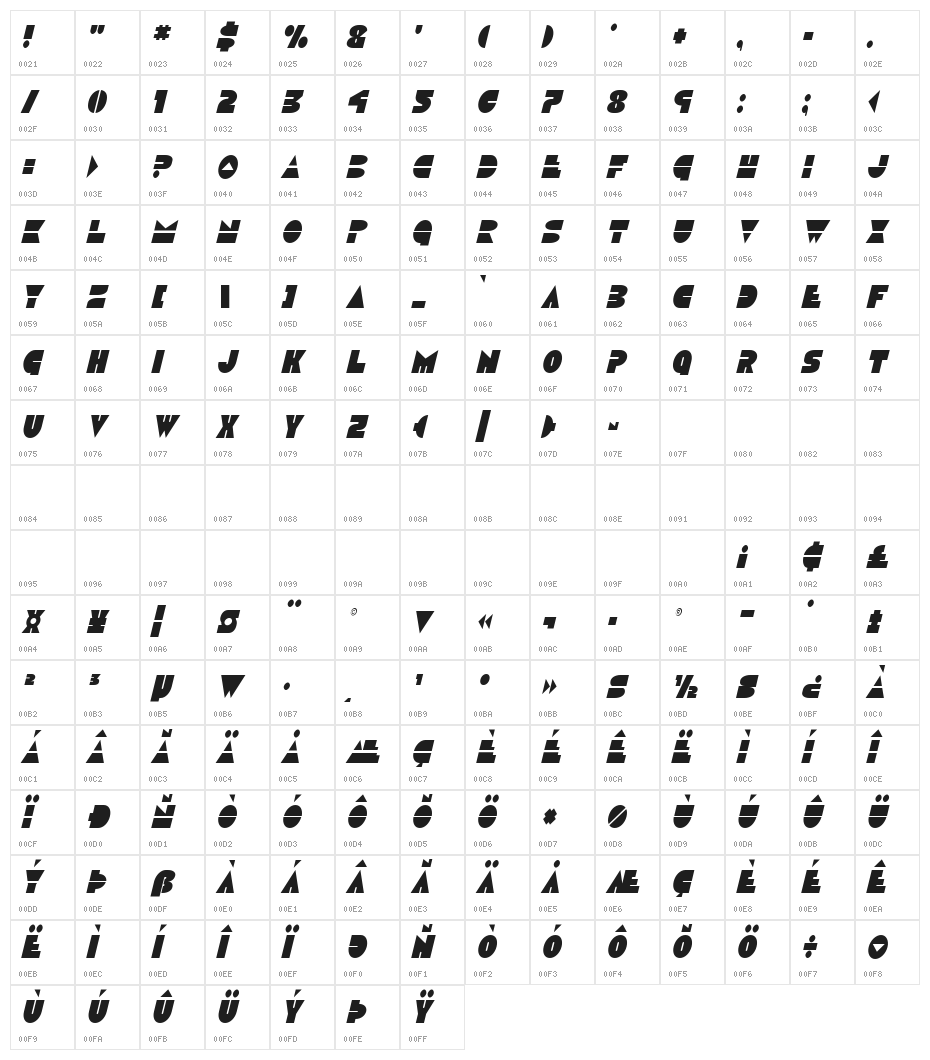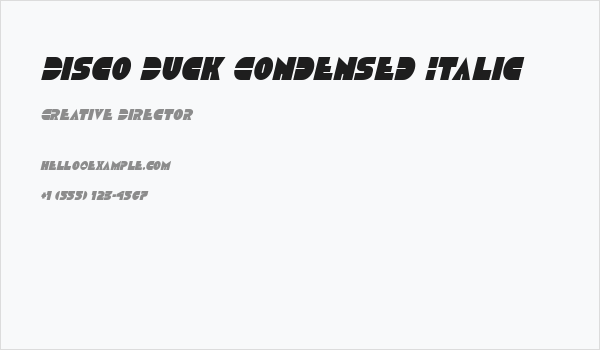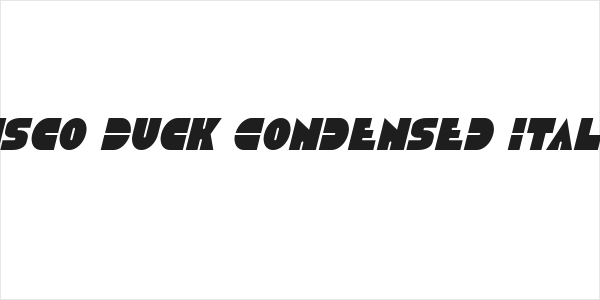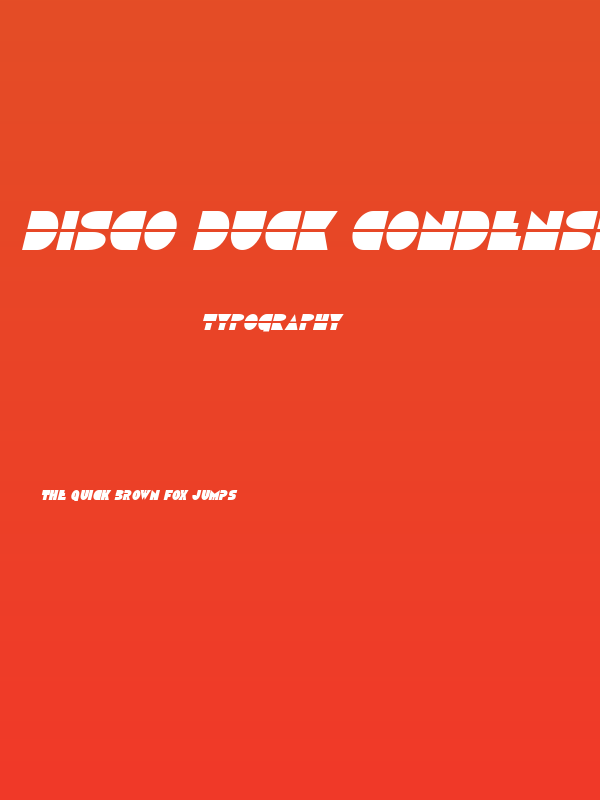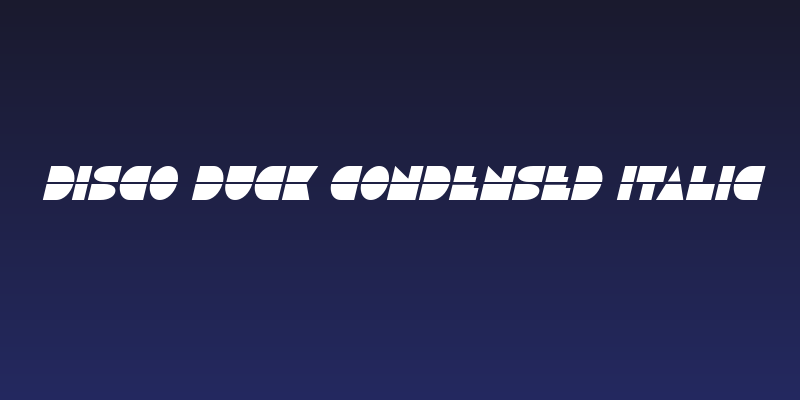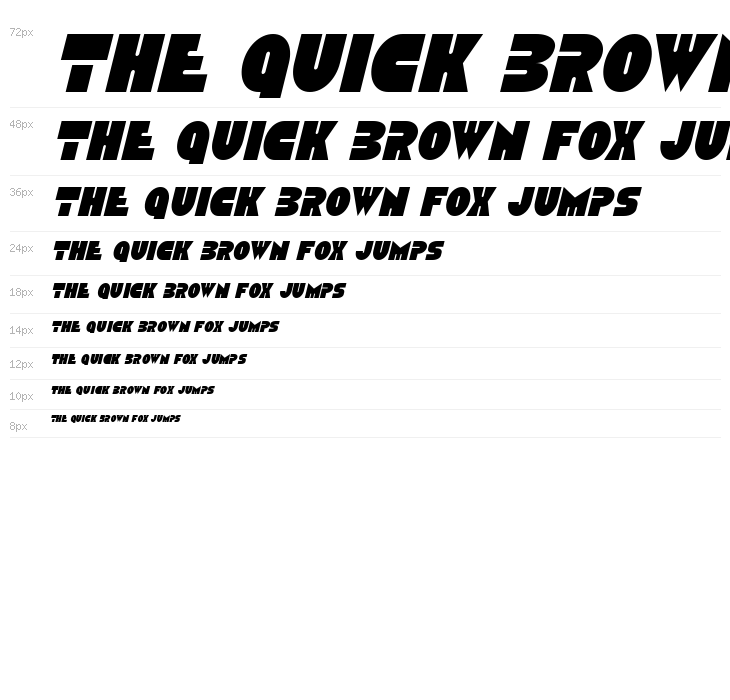
Disco Duck Condensed Italic Font
Disco Duck Condensed Italic Description
This font features a bold and dynamic design with a distinctly geometric and angular style. The characters are condensed and italicized, giving them a sleek, modern appearance. The sharp angles and clean lines create a sense of movement and energy, making it ideal for eye-catching designs. The uppercase and lowercase letters maintain a consistent style, while the numbers and special characters are equally bold and striking. This font's unique aesthetic is perfect for projects that require a strong visual impact.
| Proposed Projects | Ideal for posters, album covers, branding, and any project needing a bold, modern look. |